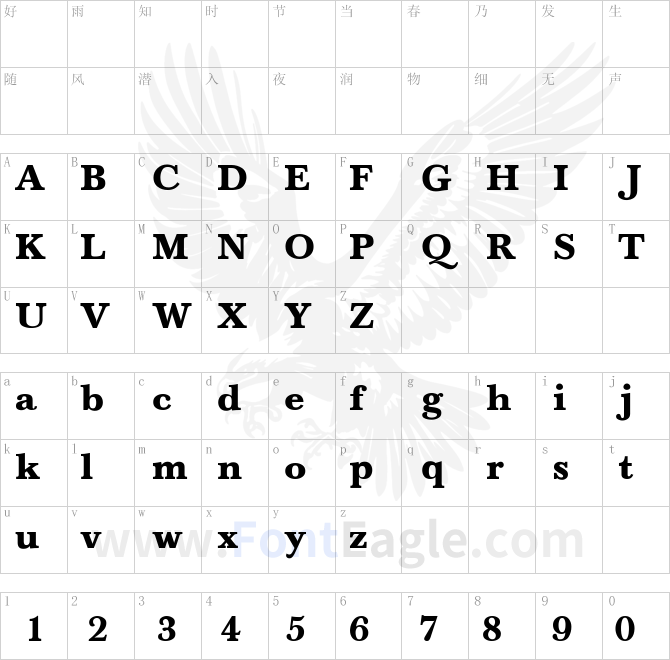
- Font name:NewBaskerville-Bold
- Font Subfamily ID:NewBaskerville-Bold Regular
- Font Full Name:NewBaskerville-Bold
- Postscript:NewBaskerville-Bold